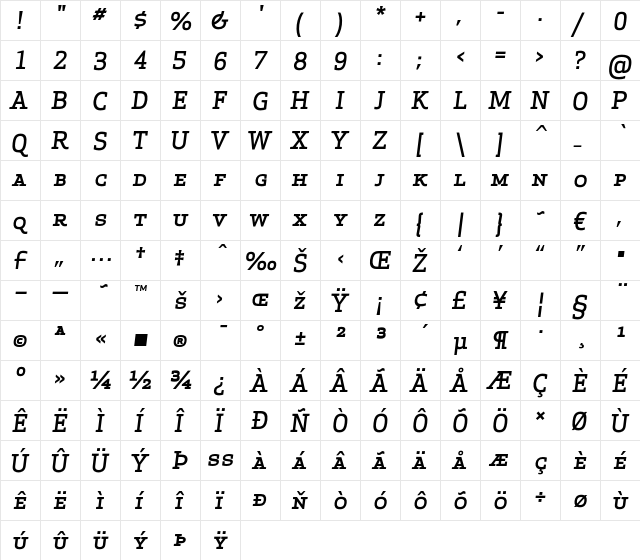
Apex Serif Medium Italic Caps Regular
Design Context for Apex Serif Medium Italic Caps Typeface
Apex Serif Medium Italic Caps carries the refined structure of traditional serif typography, with bracketed terminals and considered proportions that communicate credibility and craft. The dynamic lean of this cut emphasises speed and emphasis in any layout.
Pro Tip: Set Apex Serif Medium Italic Caps with slightly loose tracking in headlines to let each letterform's detail read clearly at display sizes.